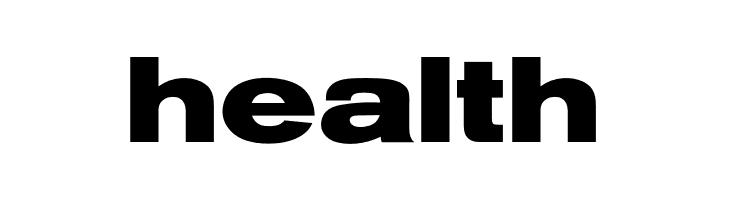
A playful, handwritten font with a casual, scribbled style.
A modern, light, and elegant font with a clean design.
A bold, extended font with a modern and impactful style.
A bold, elongated font with a vintage flair and high contrast strokes.
A sleek, light, and italic font with a modern and elegant design.
A bold, dynamic serif font with modern and traditional elements.
A bold, outlined font with a modern and impactful style.
A bold, high-contrast serif font with elongated serifs and narrow proportions.
An ornate and decorative font with intricate swirls and flourishes.
An elegant and flowing script font with intricate loops and flourishes.